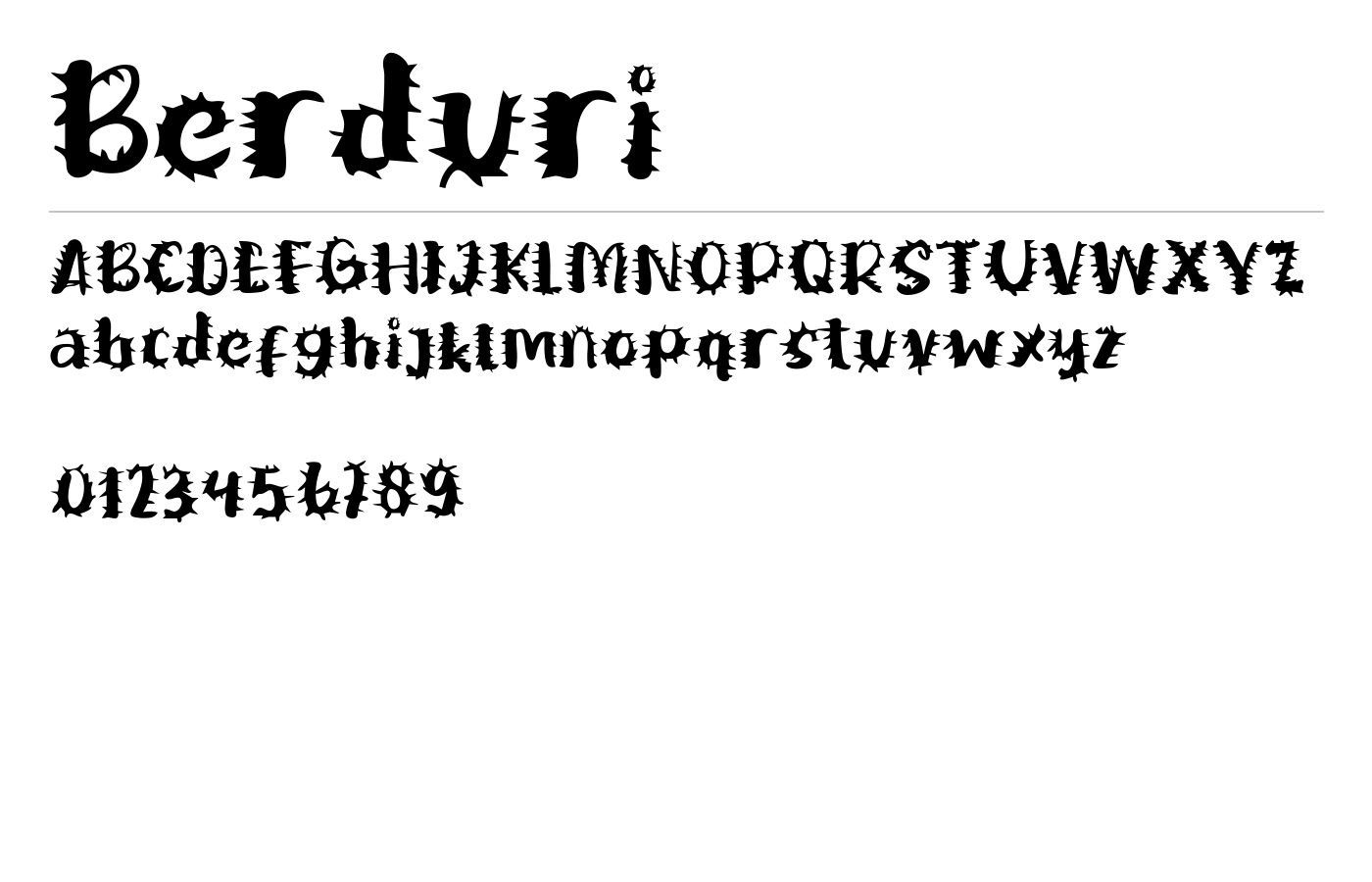
Berduri is a distinctive serif font featuring sharp, thorn-like embellishments that give it a bold, edgy character. Its medium weight and high contrast strokes, combined with unique letterforms and a playful yet slightly gothic vibe, make it ideal for creative headlines, posters, or branding projects seeking a dramatic, unconventional look. This font works best where strong personality and visual impact are needed, especially in artistic or alternative designs.
Berduri Font
About Berduri Font
| Font family | Berduri Font |
| Designer | Letterday Studio |